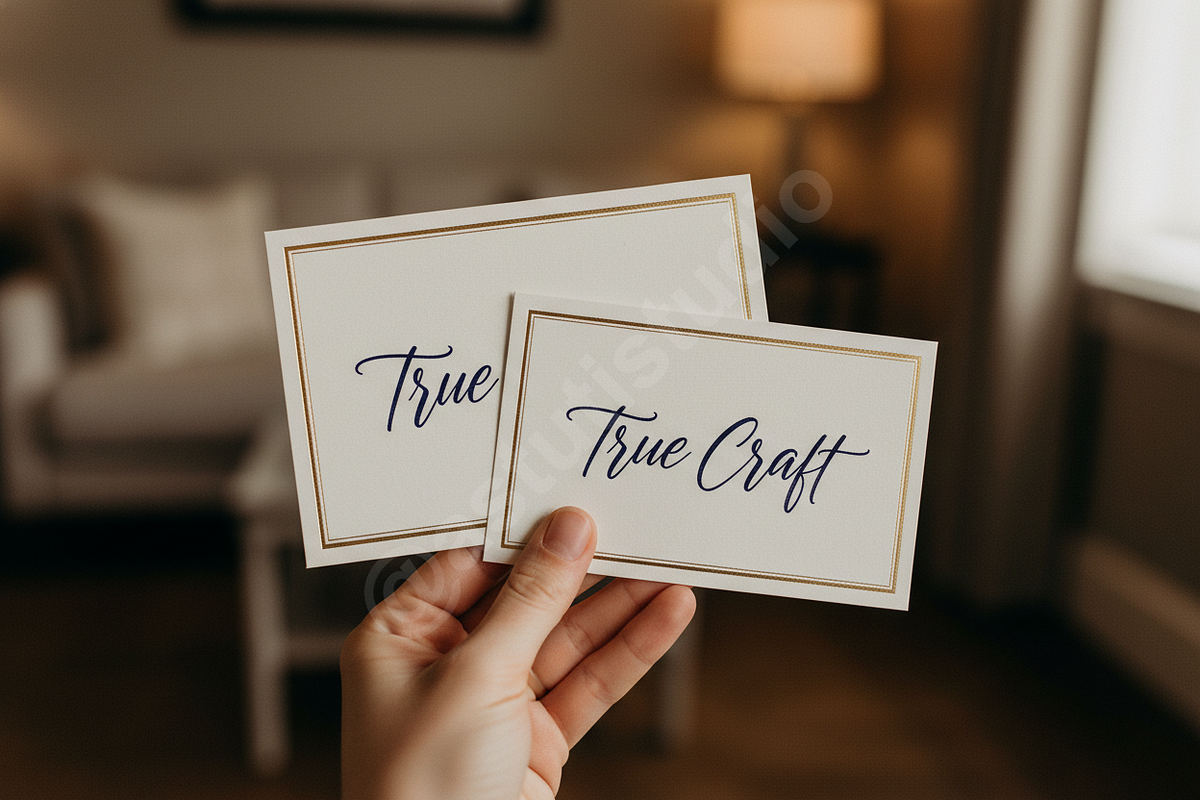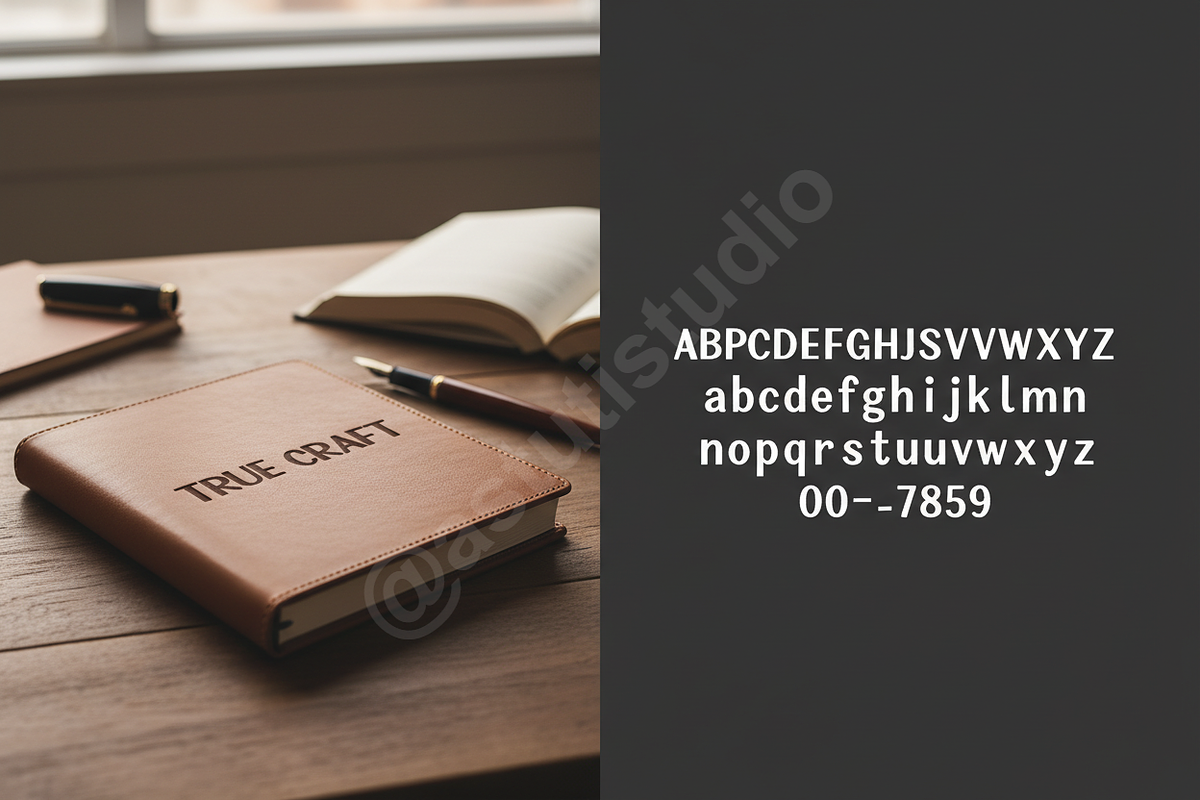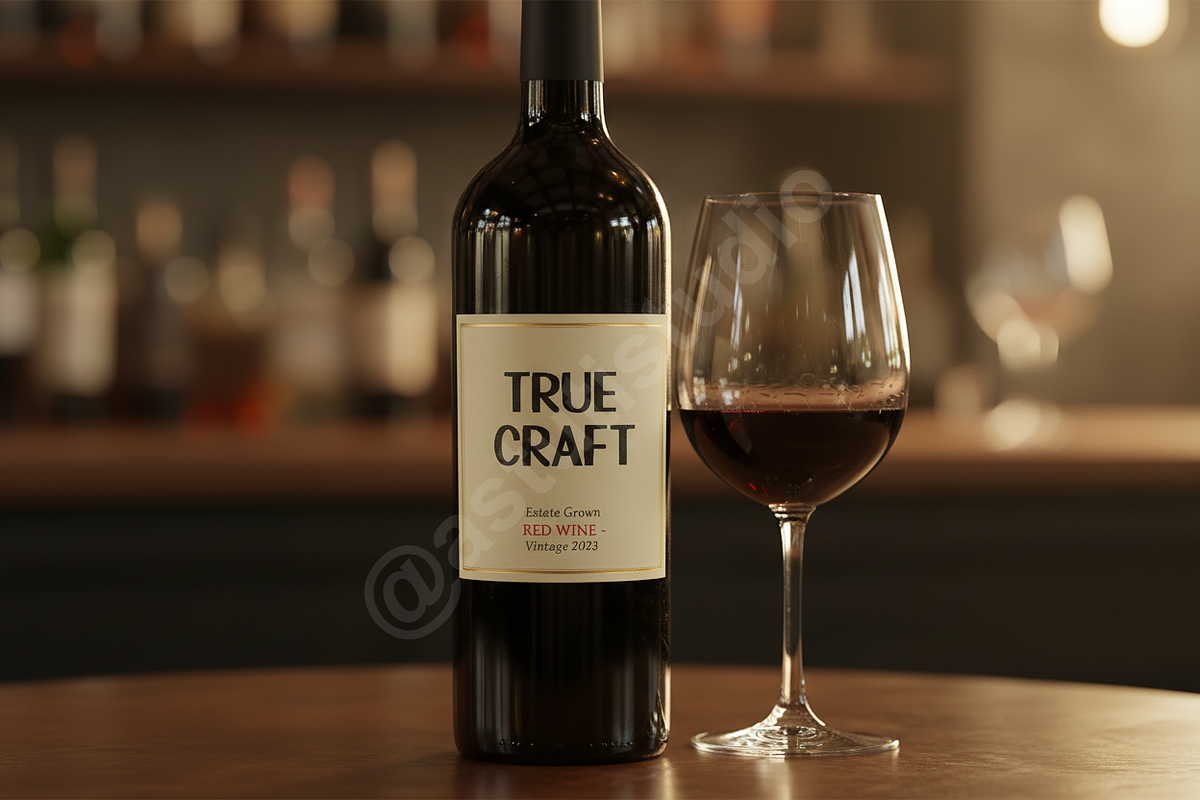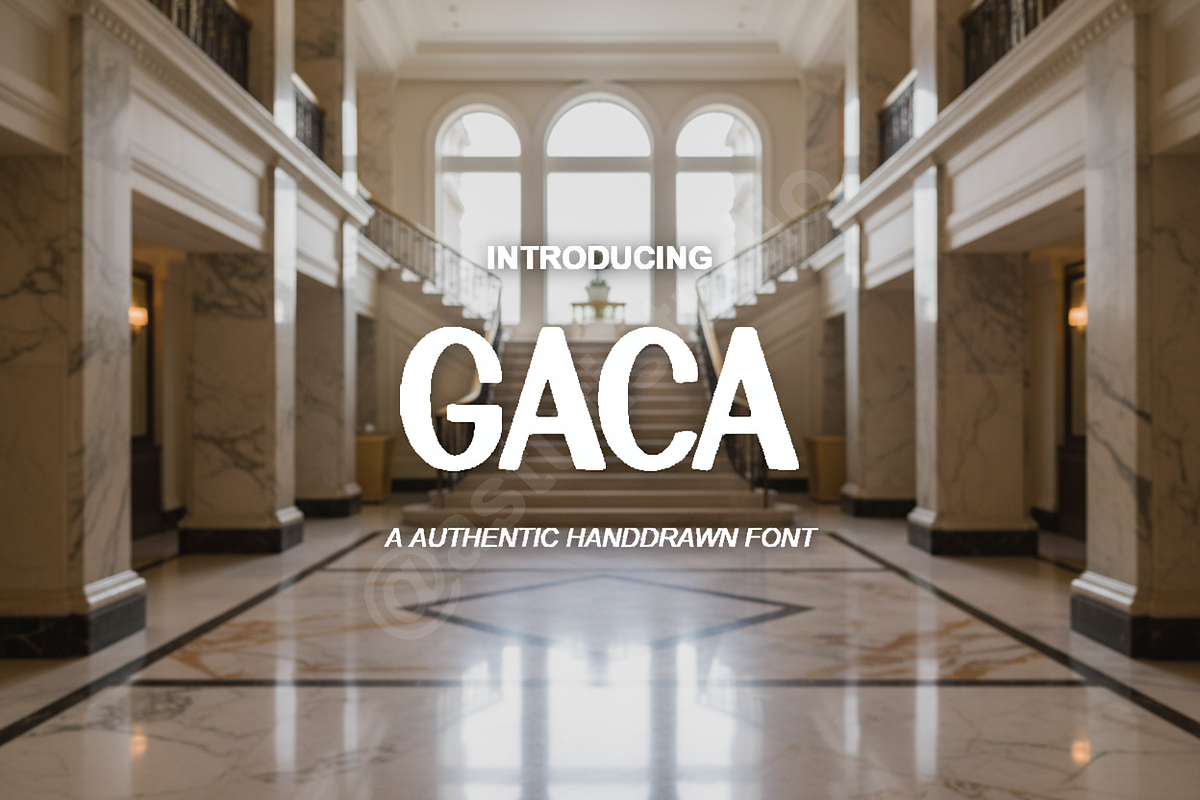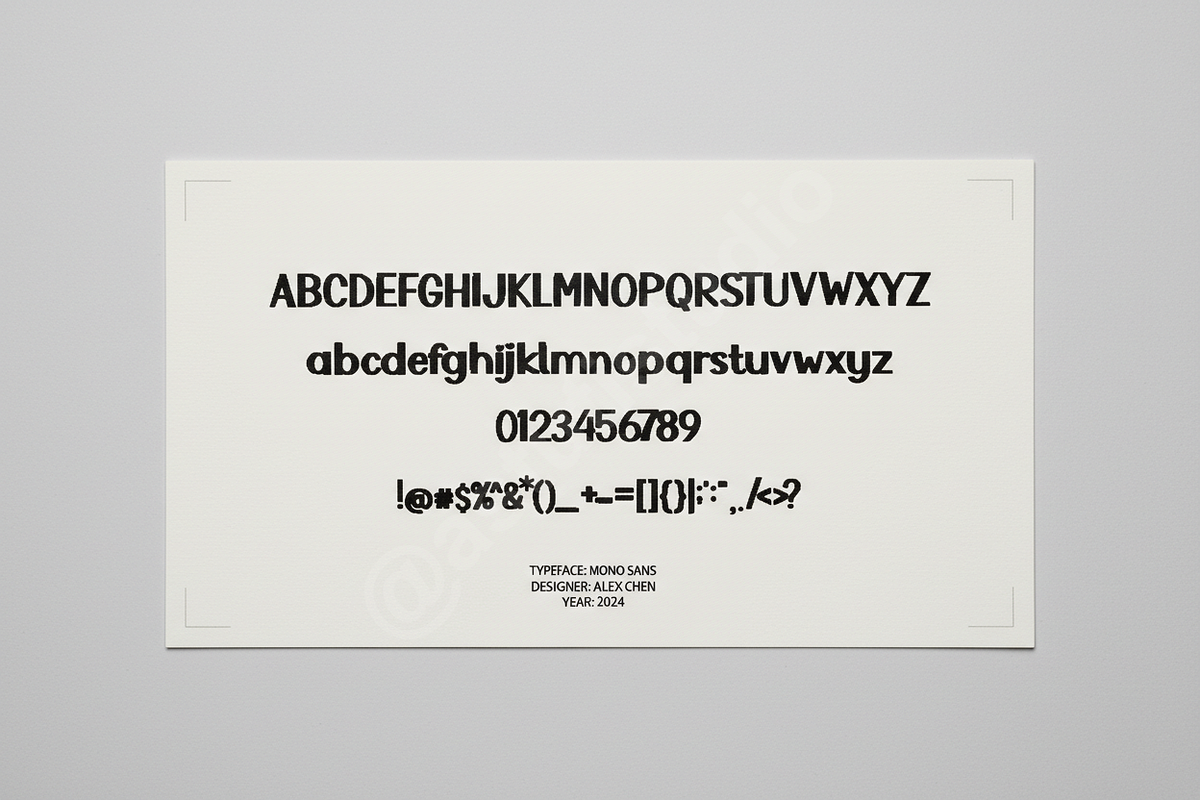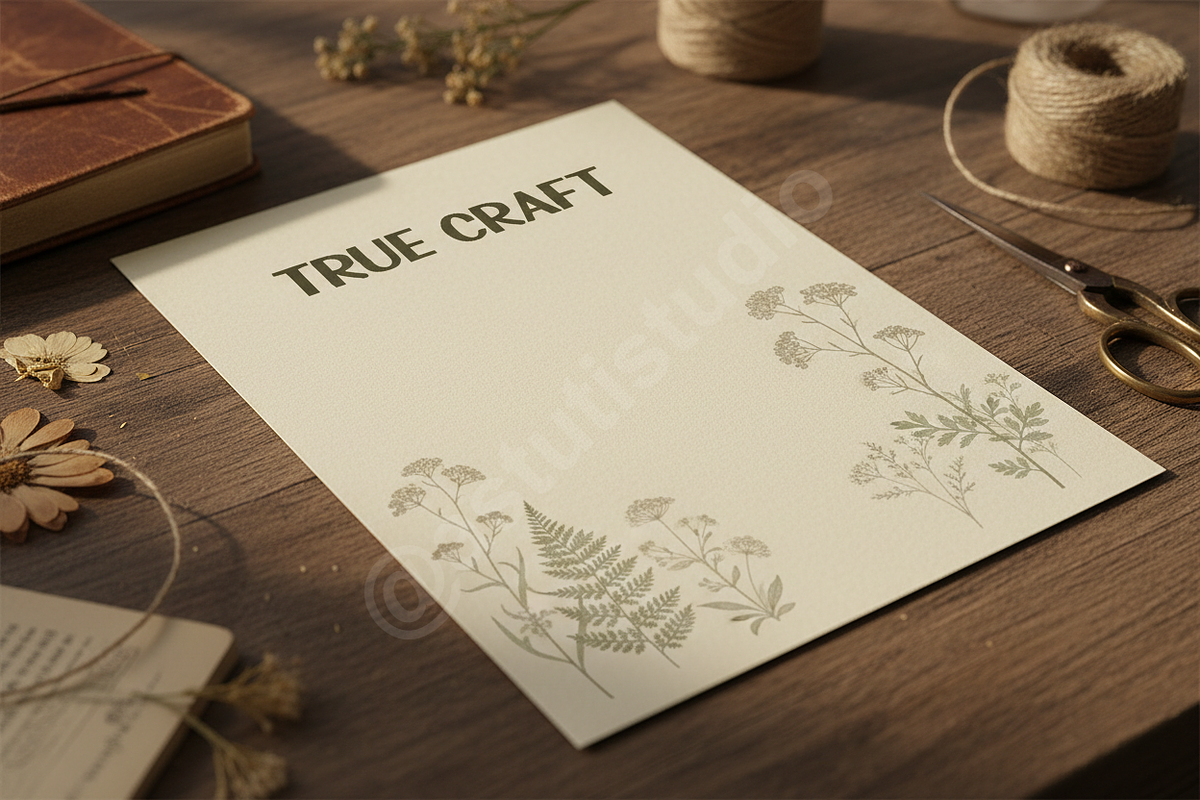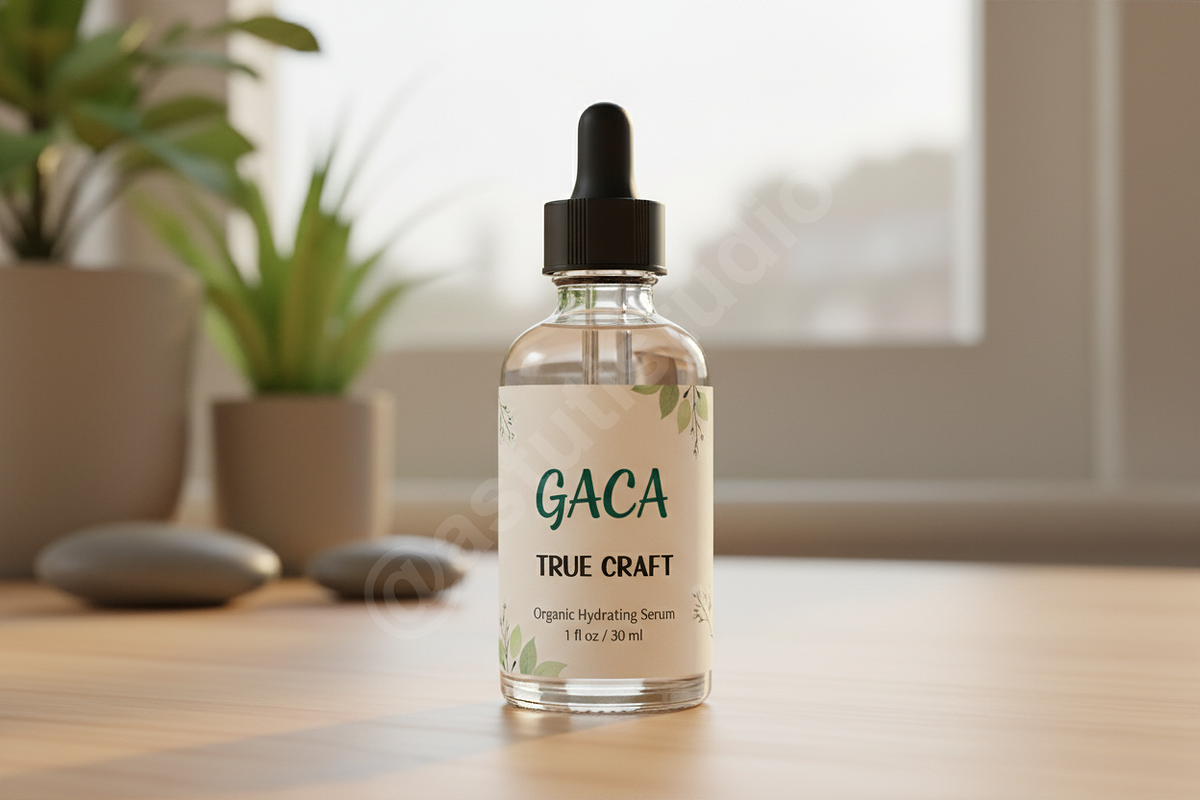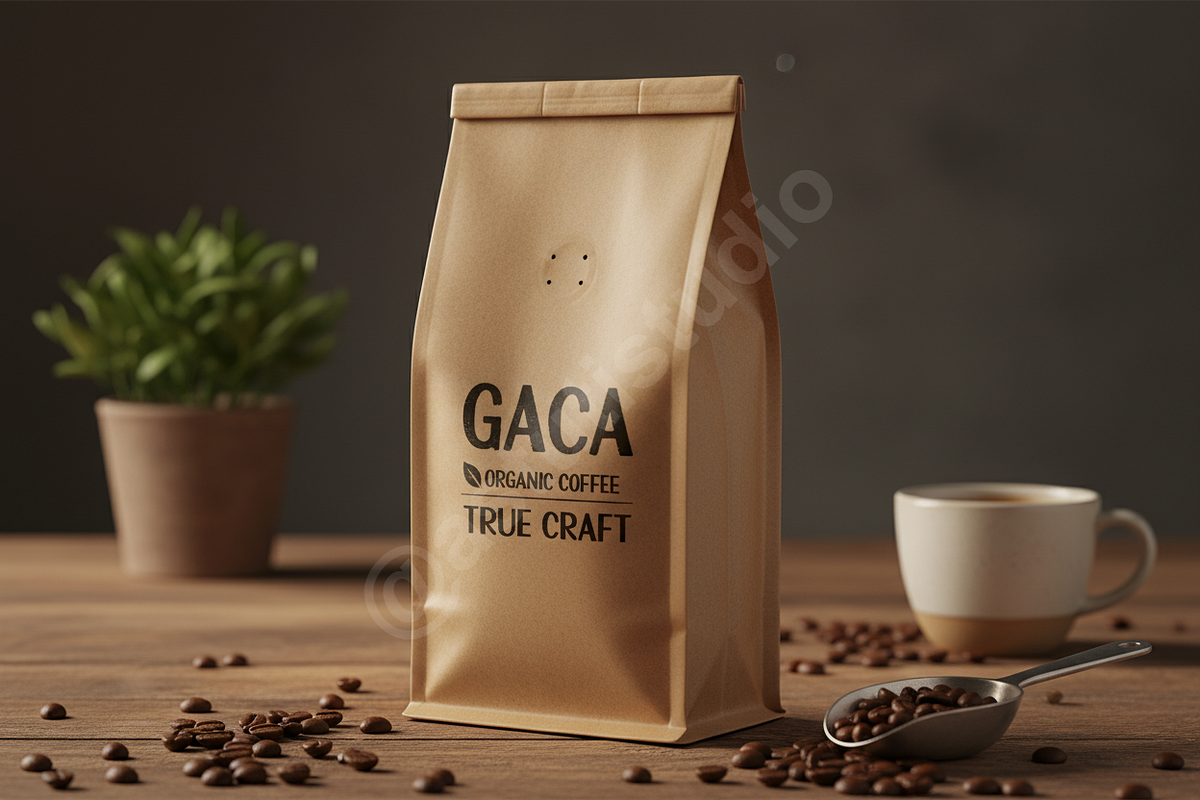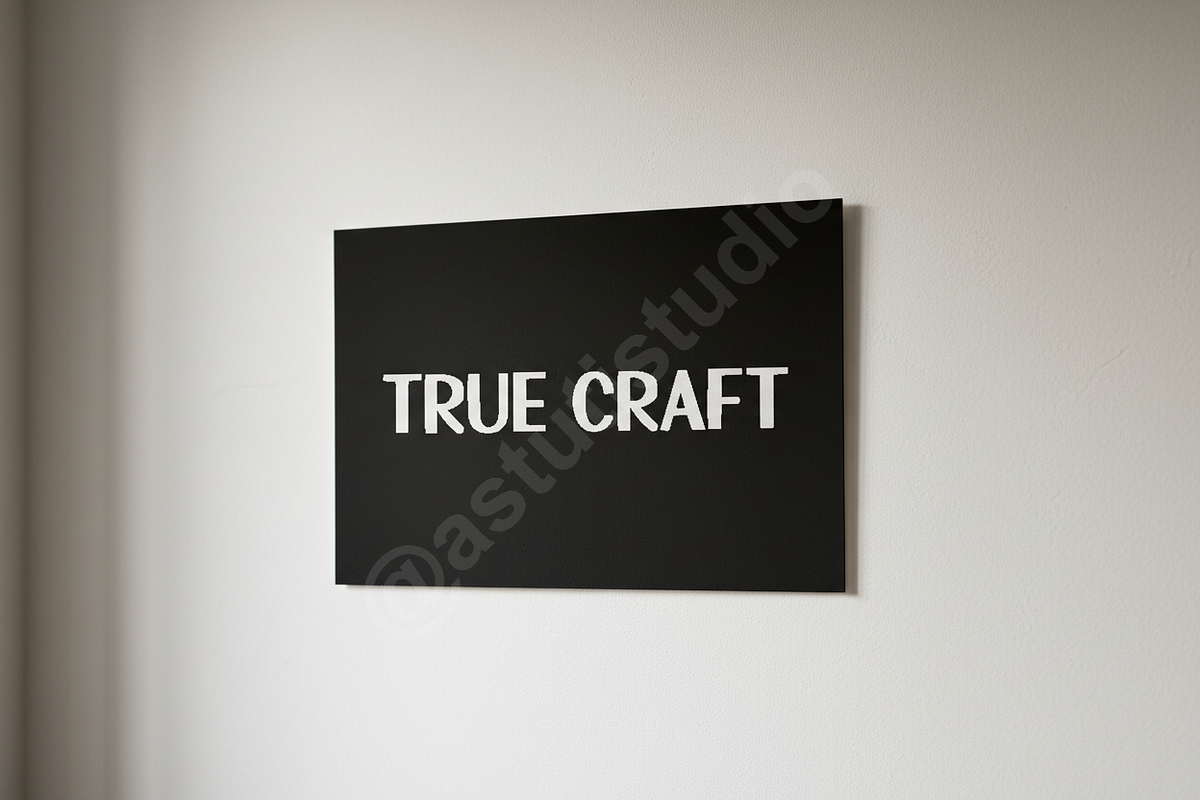
Gaca - Modern Luxury Serif Font
Introducing Gaca, a sophisticated serif font designed to embody modern luxury and timeless elegance. With its refined lines and balanced proportions, Gaca is the quintessential choice for elevating projects that demand an air of prestige. Perfect for high-end luxury branding, sophisticated editorial layouts, and impactful social media campaigns, Gaca ensures your message is delivered with unparalleled grace and authority.
- Elegant Serif Design: A harmonious blend of classic sophistication and modern appeal.
- Versatile & Adaptable: Ideal for logos, headlines, body text, and digital media.
- Extensive Character Set: Includes uppercase, lowercase, numbers, punctuation, and comprehensive multilingual support.
- Optimized for Readability: Meticulously designed kerning and spacing for seamless visual flow.
- OpenType Features: Access to ligatures and stylistic alternates for enhanced typographic expression.